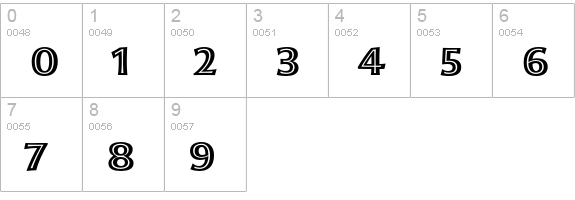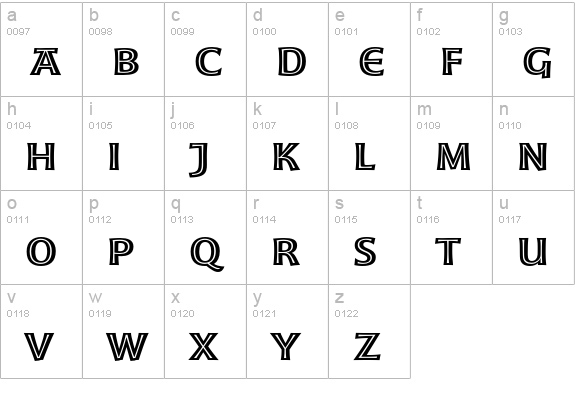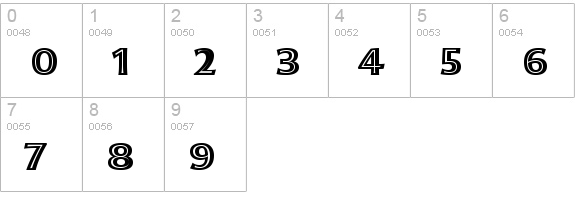
Moonglow Semibold Extended is a sub-bold, structured, extended-width variant in the Moonglow typeface family \xE2\x80\x94 well suited to sub-headlines and emphasised passages.
Moonglow Semibold Extended font is a striking and modern typeface that exudes confidence and sophistication. With its bold and extended design, this font commands attention and adds a touch of elegance to any project. Perfect for headlines, titles, and branding materials, Moonglow Semibold Extended font will make your text stand out with its sleek and stylish appearance. And the best part? Moonglow Semibold Extended font is available for free download at FontsMarket.com. So you can easily enhance your designs without any additional cost. Don't miss out on this amazing opportunity to add a touch of glamour to your projects with Moonglow Semibold Extended font. Download it today and elevate your typography game!